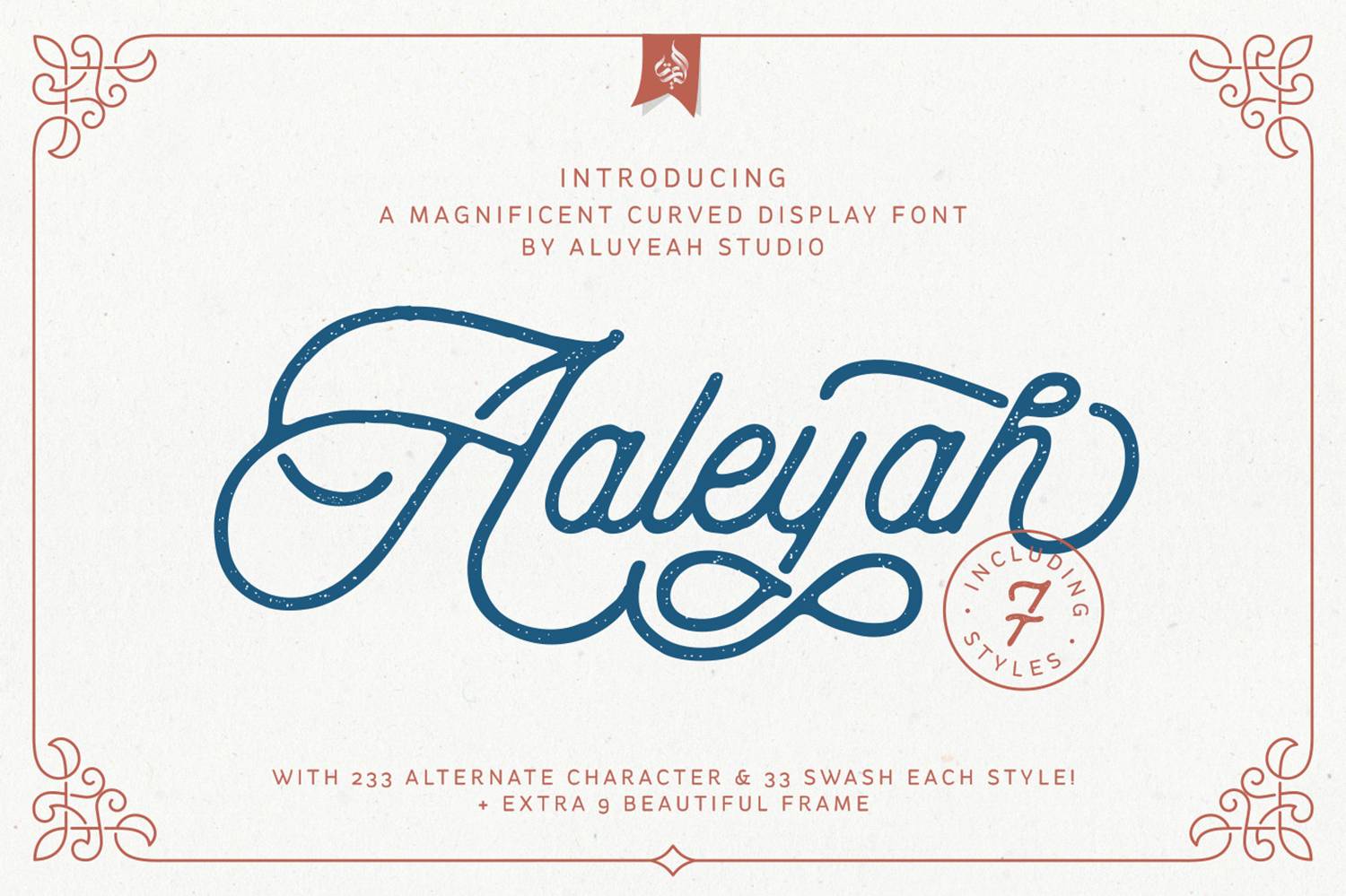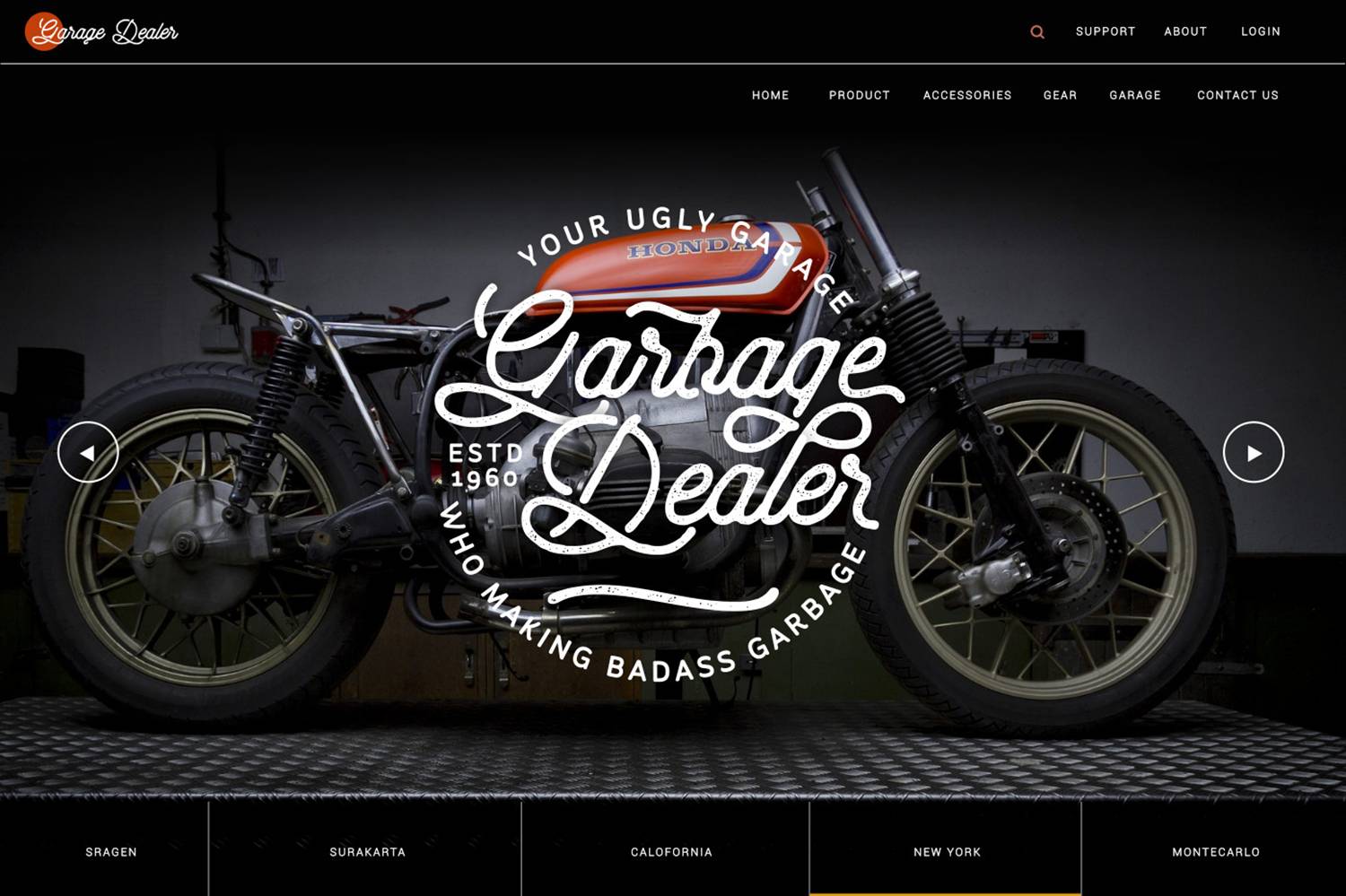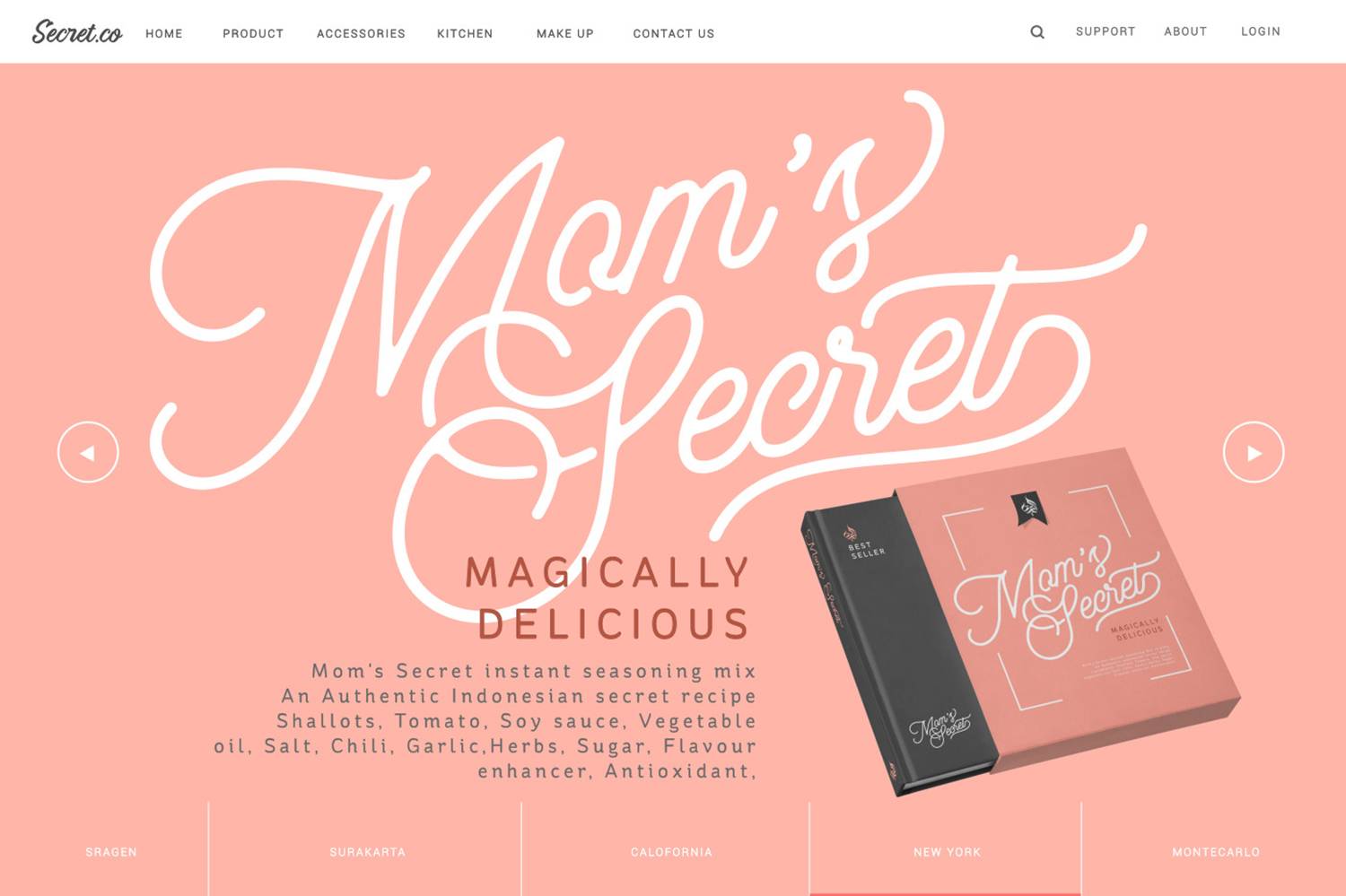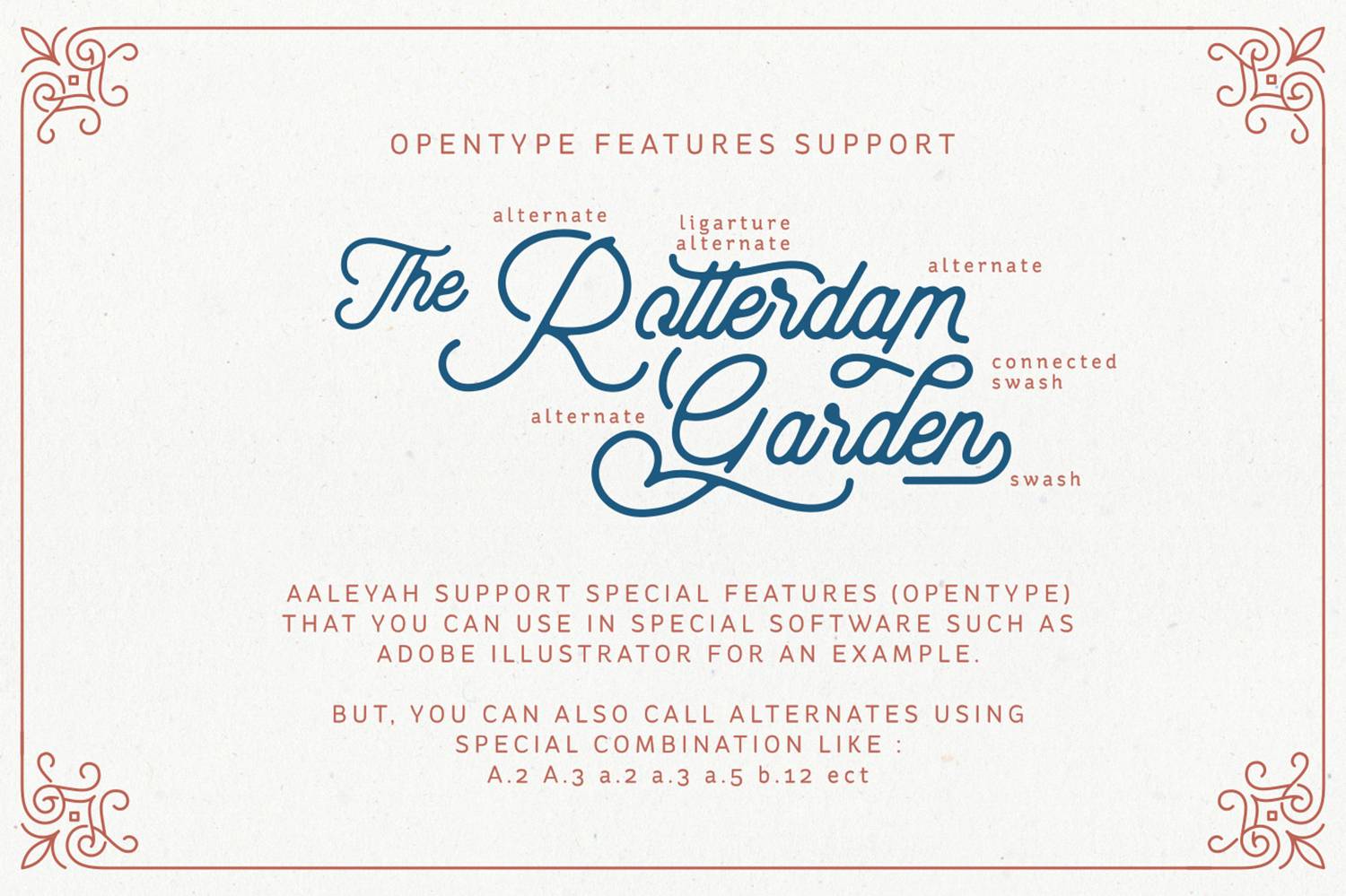
Aaleyah Font is an elegant, flowing script typeface with thin, graceful strokes and a delicate, handwritten feel. Its refined and intricate letterforms evoke a personal and sophisticated mood, making it perfect for invitations, luxury branding, and stylish editorial designs. This font works best in decorative contexts where a touch of elegance and individuality is desired.
Aaleyah Font
About Aaleyah Font